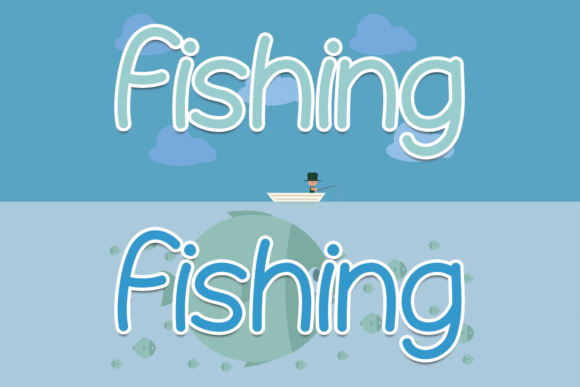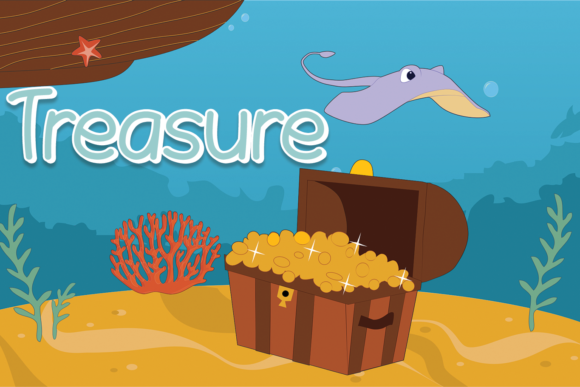
Ohayo Font
db-ku.com - Script & Handwritten -- Ohayo is a sweet, simple lettered and adaptable handwritten font. Its cute and full of life style makes this font a wonderful choice for brightening up your designs.